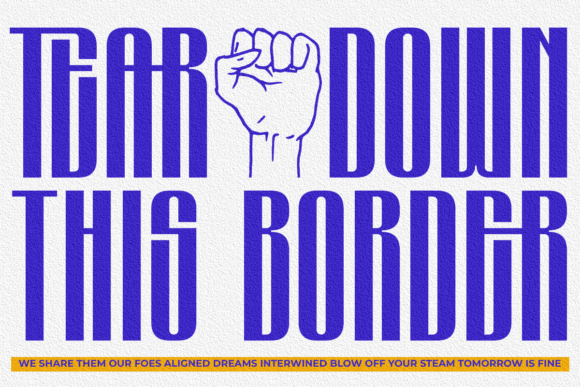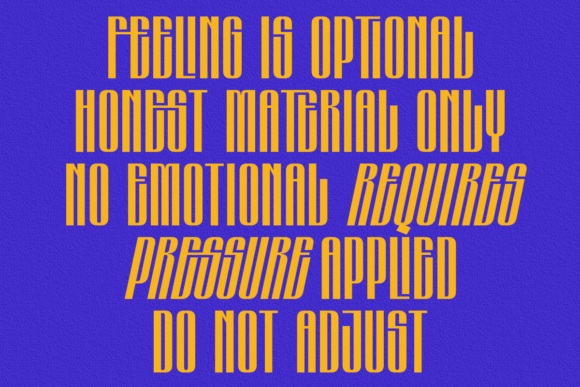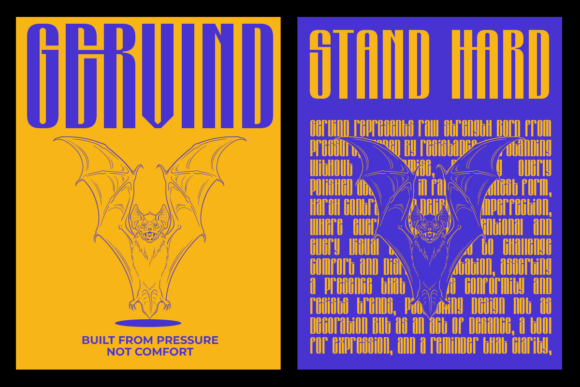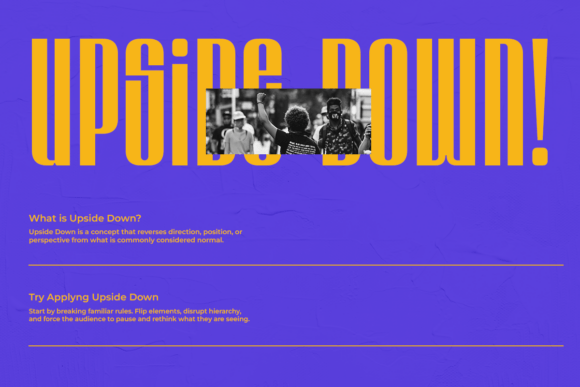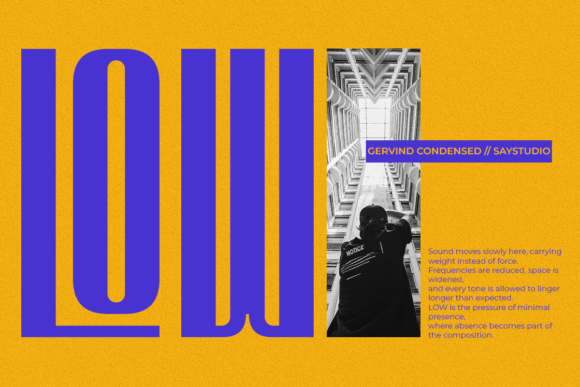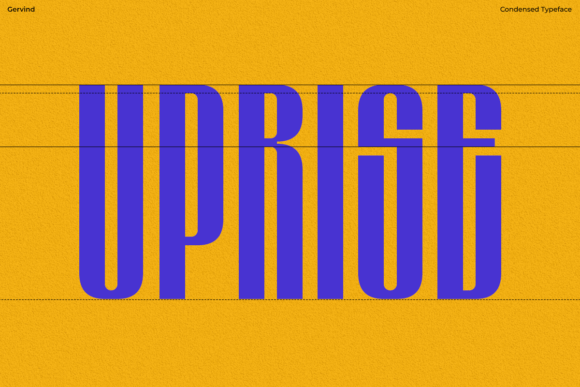
Unlocking the Power of Gervind Font: A Designer’s Dream Come True
With its tall proportions, strong structure, and clean geometry, Gervind brings a powerful, confident presence that instantly captures attention. In this article, I’ll dive into the world of Gervind Font, sharing my honest review, practical tips on how to use it, and some valuable insights into its design and inspiration.
An Honest Review of Gervind Font
What I Love About Gervind Font
- ✅ Maximum visual impact: Gervind is designed to deliver maximum visual impact in modern design projects, making it perfect for headlines, posters, branding systems, and digital visuals.
- ✨ Clean geometry and strong structure: The font’s clean geometry and strong structure give it a confident and powerful presence.
- 🔥 Condensed form: Gervind’s condensed form allows designers to create striking compositions without sacrificing space, making it ideal for packaging, advertising, social media content, and more.
- 📈 Scalability: Gervind ensures consistent impact across all platforms, from large-scale campaigns to compact layouts.
While Gervind Font is an incredible typeface, there are a few minor quirks to be aware of:
- 🤔 Limited use in body text: Due to its bold and condensed nature, Gervind may not be the best choice for body text or long-form content.
- ⚠️ Requires careful kerning: As with any condensed font, kerning can be a bit tricky, especially at smaller font sizes.
The Backstory of Gervind Font
Gervind Font was inspired by contemporary graphic trends, editorial layouts, and commercial branding needs. Its designer aimed to create a typeface that would excel in delivering sharp readability while maintaining a bold personality. With its strong structure and clean geometry, Gervind Font is perfect for designers, crafters, and creative hobbyists looking to make a statement.
| What is Gervind Font best used for? | Gervind Font is best used for headlines, posters, branding systems, and digital visuals where clarity and strength matter most. |
| Can I use Gervind Font for body text? | While possible, Gervind Font is not ideal for body text due to its bold and condensed nature. It’s best suited for titles, headings, and short-form content. |
| Is Gervind Font suitable for digital use? | Yes, Gervind Font is optimized for digital use and ensures consistent impact across all platforms. |